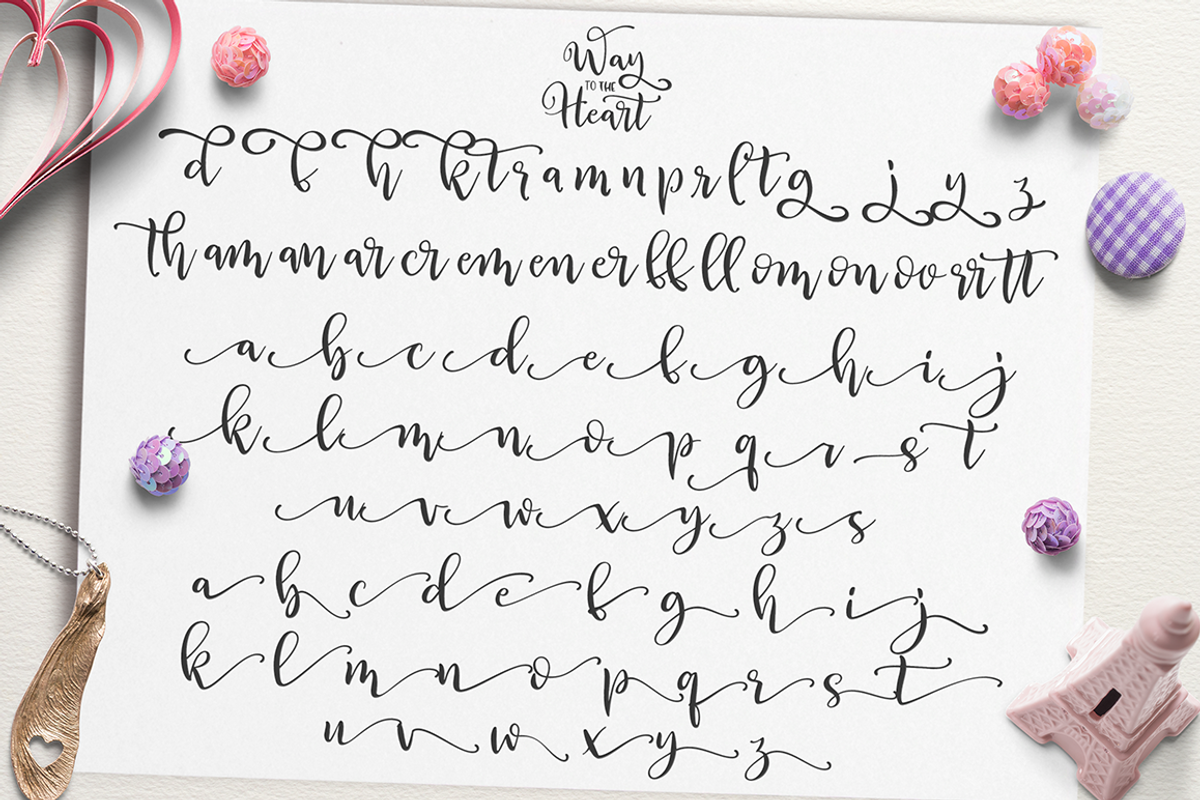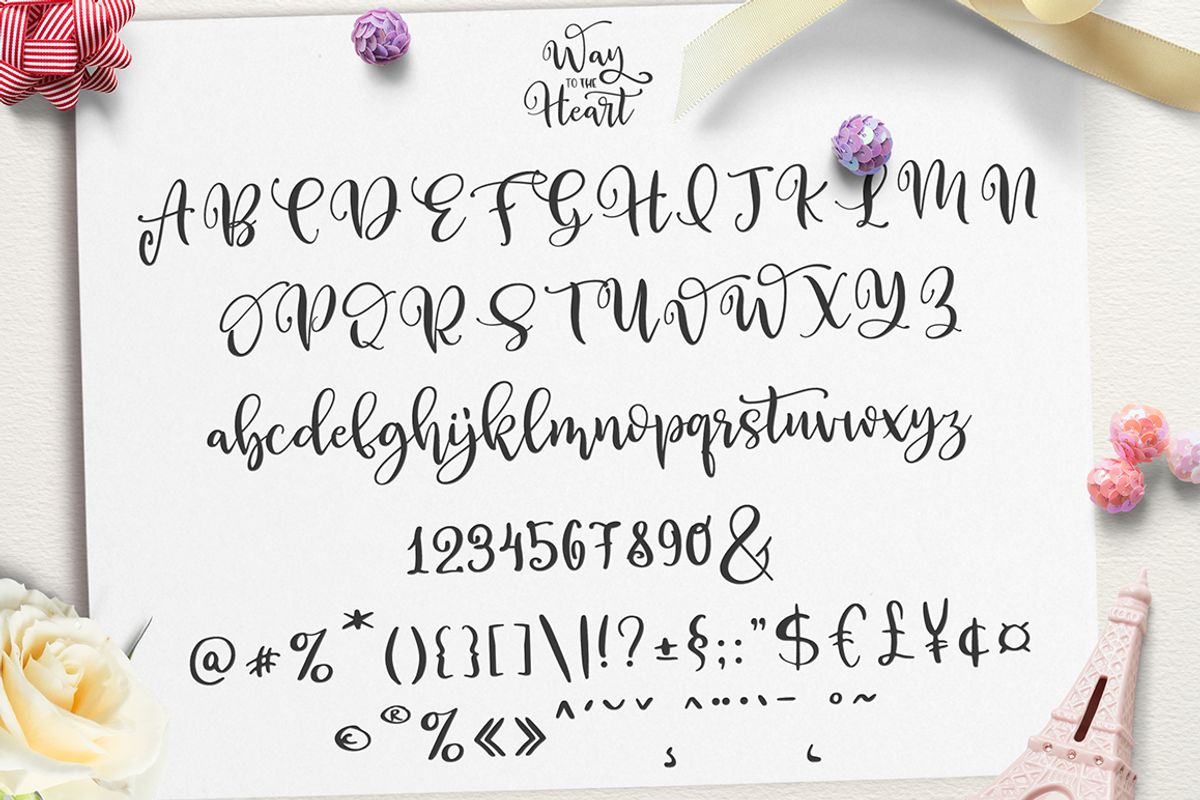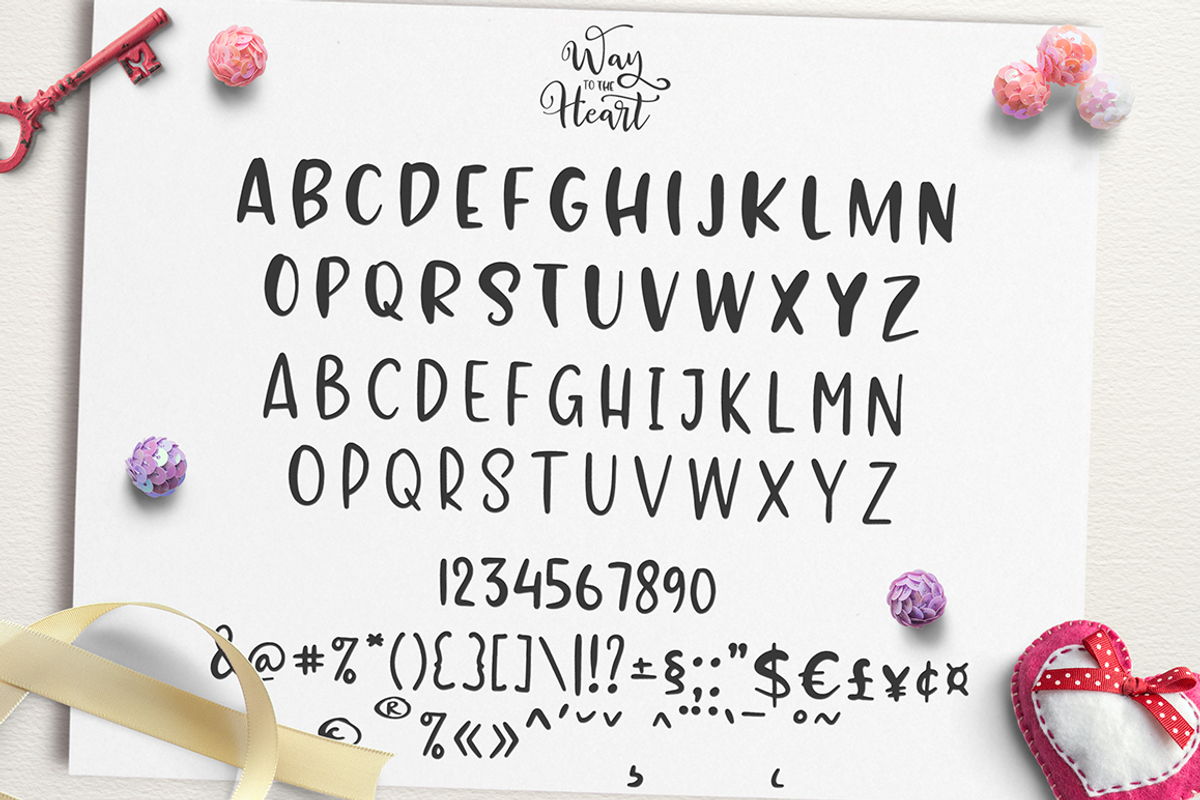
Way to the Heart
Way to the Heart- a new sweet handmade fonts.
This font is ideal for branding and decorate your any project, are perfect for wedding invitation or your blog. Also with their help, you can create a logo or beautiful frame for your home. Or just use for your small business, book covers, stationery, marketing, magazines and more. Especially for you, I have prepared a lot of ligatures and alternatives that would be your project was more unique.